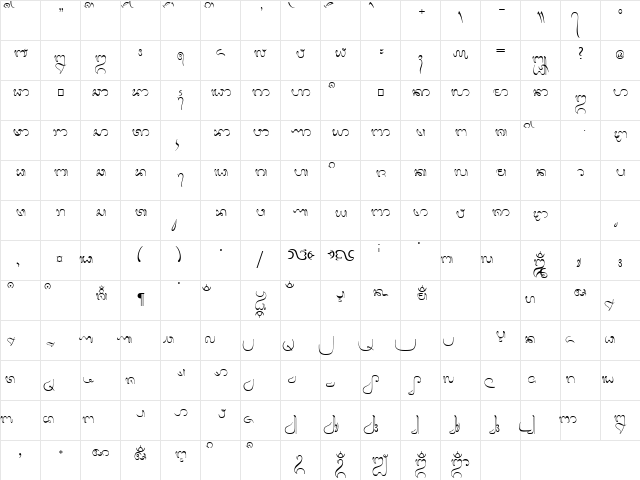
Bali Simbar-B Regular
Design Context for Bali Simbar-B Typeface
Bali Simbar-B offers clean, dependable letterforms without strong stylistic allegiance, making it a practical choice for designers who need flexibility.